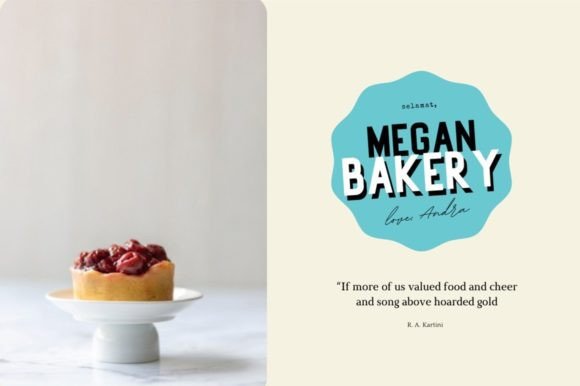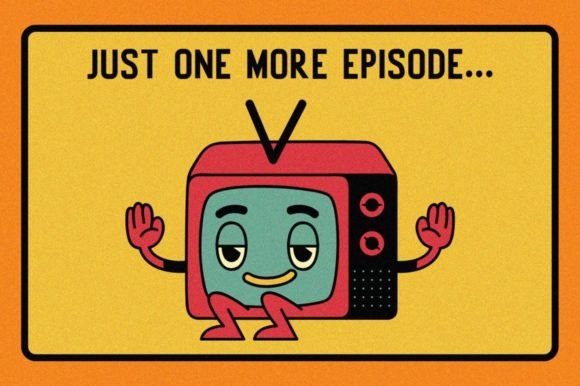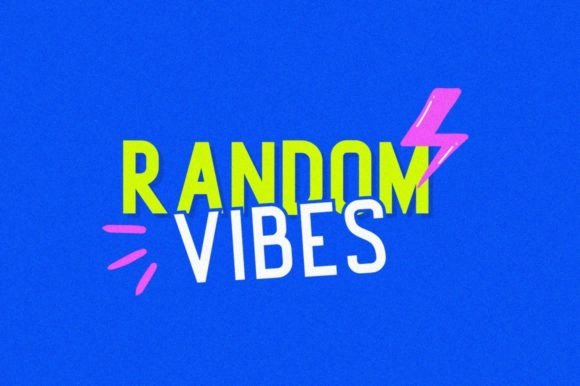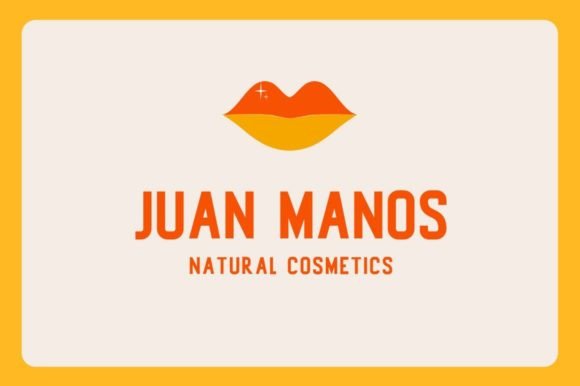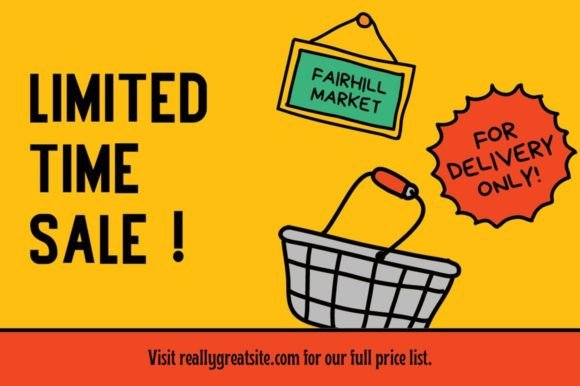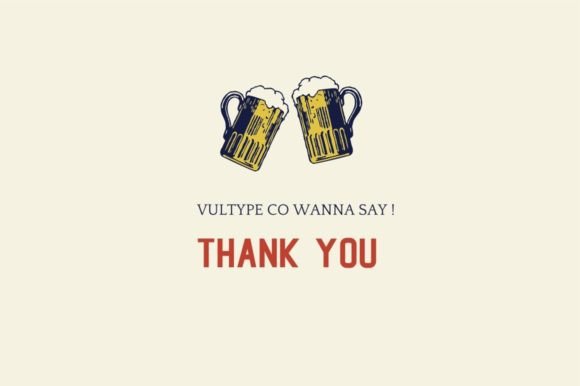
Introduction to Highpro Font
Have you ever stared at a blank canvas, eager to bring your creative vision to life, but struggling to find the perfect font to set the tone? You’re not alone. As a designer, you understand the importance of choosing a font that not only complements your message but also captures the attention of your audience. That’s where the Highpro Font comes in – a vintage condensed display font that’s sure to elevate your creative project to the next level.
With its unique blend of high-quality design and versatility, the Highpro Font is a valuable addition to any design resource. Whether you’re working on a logo, branding, or editorials, this font is sure to add a touch of sophistication and elegance to your work. And the best part? It’s available for free download, making it an accessible design tool for creatives of all levels.
Key Features of Highpro Font
- High-quality vector graphics for a crisp and clear display, suitable for various design projects.
- Includes a transparent background, allowing for easy customization and integration with various design elements.
- High-resolution design (300 DPI) for use in high-quality print materials and digital applications.
- Designed with a modern aesthetic, making it perfect for creative projects requiring a contemporary look.
- Available in a range of sizes, from 12pt to 72pt, to accommodate various design needs.
Honest Review: Highpro Font
As a designer, I’m always on the lookout for high-quality design resources to elevate my creative projects. Recently, I stumbled upon the Highpro Font, which offers a free download and has been making waves in the design community. Let’s dive into the details and see if it lives up to the hype.
- High-quality glyphs and ligatures make for a professional-looking design.
- The font’s transparent background makes it easy to overlay on any image or background.
- The font family is versatile and can be used for a wide range of creative projects, from branding to editorial design.
- The font is not suitable for complex text layouts, as it can become overwhelming and difficult to read.
- The font’s style may not be to everyone’s taste, as it’s quite bold and eye-catching.
Overall, I’m impressed with the Highpro Font’s potential, but I do think it’s essential to use it judiciously and in the right context. With its high-quality design and transparent background, it’s a great addition to any designer’s toolkit. However, it’s not a one-size-fits-all solution, and I would recommend it for projects where a bold, eye-catching font is needed.
The Highpro Font is a high-quality, free download design resource ideal for creative projects. With its unique style and transparent background, it’s perfect for adding a touch of sophistication to your designs.
The Highpro Font is ideal for use in a variety of creative projects, including:
- Brochure design
- Poster design
- Infographic design